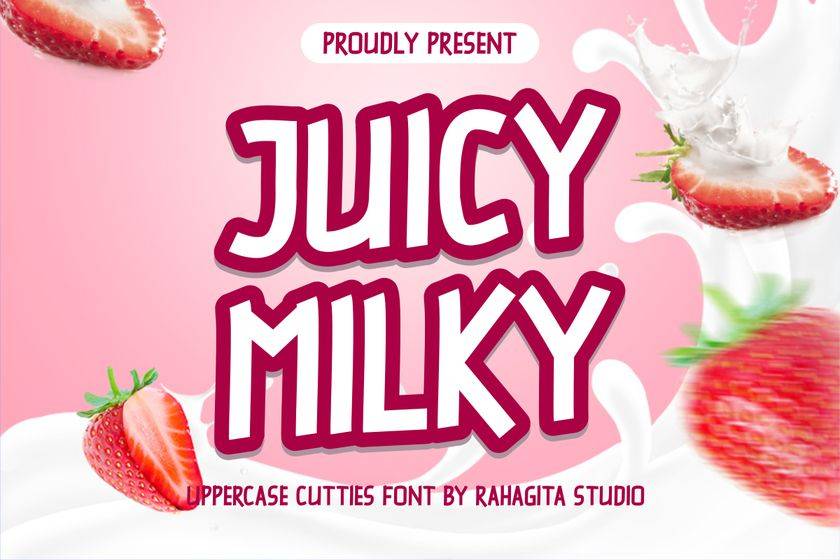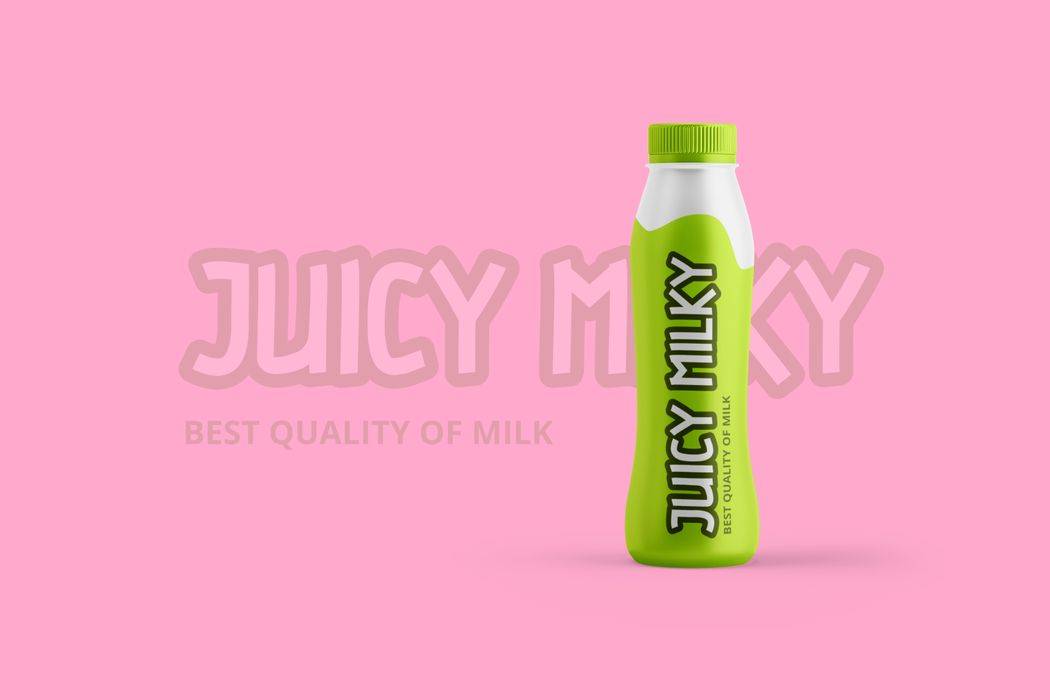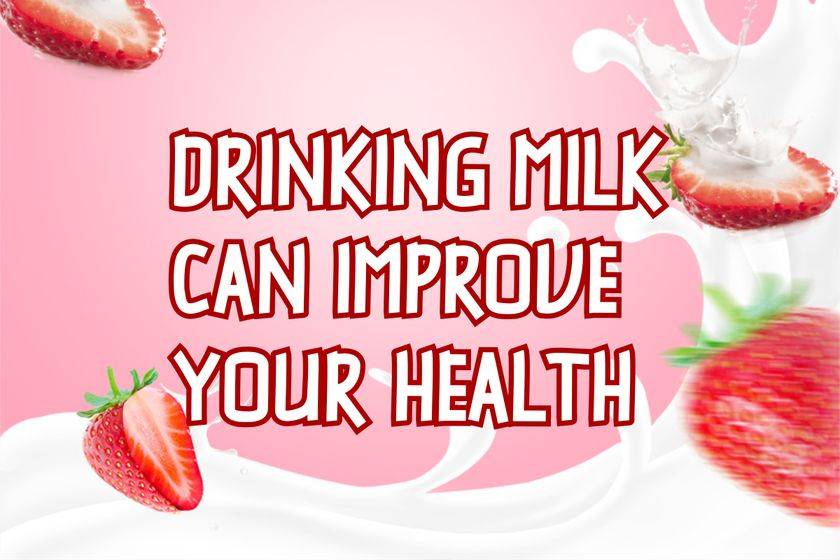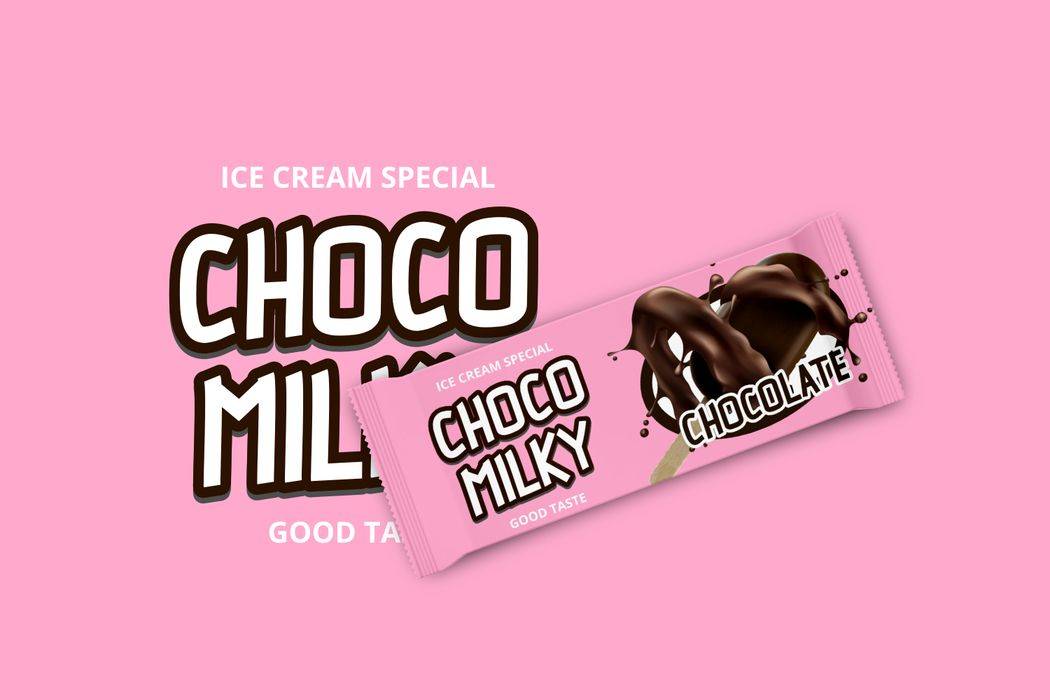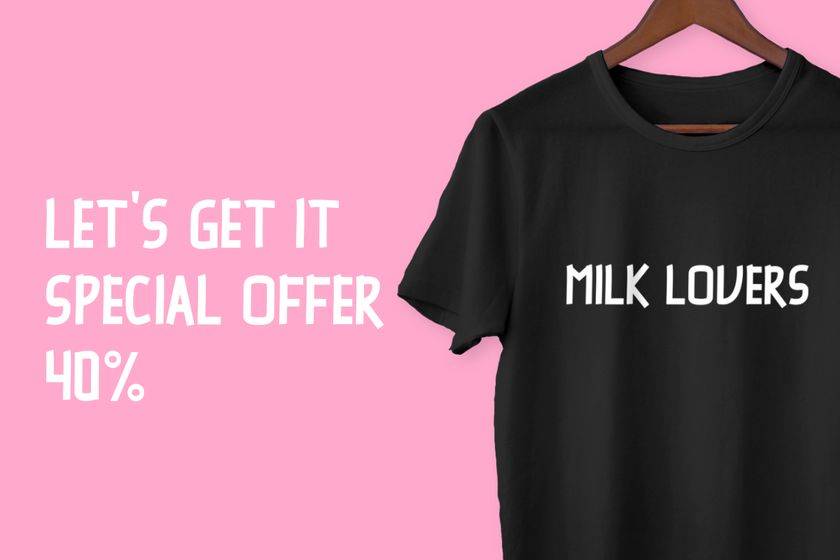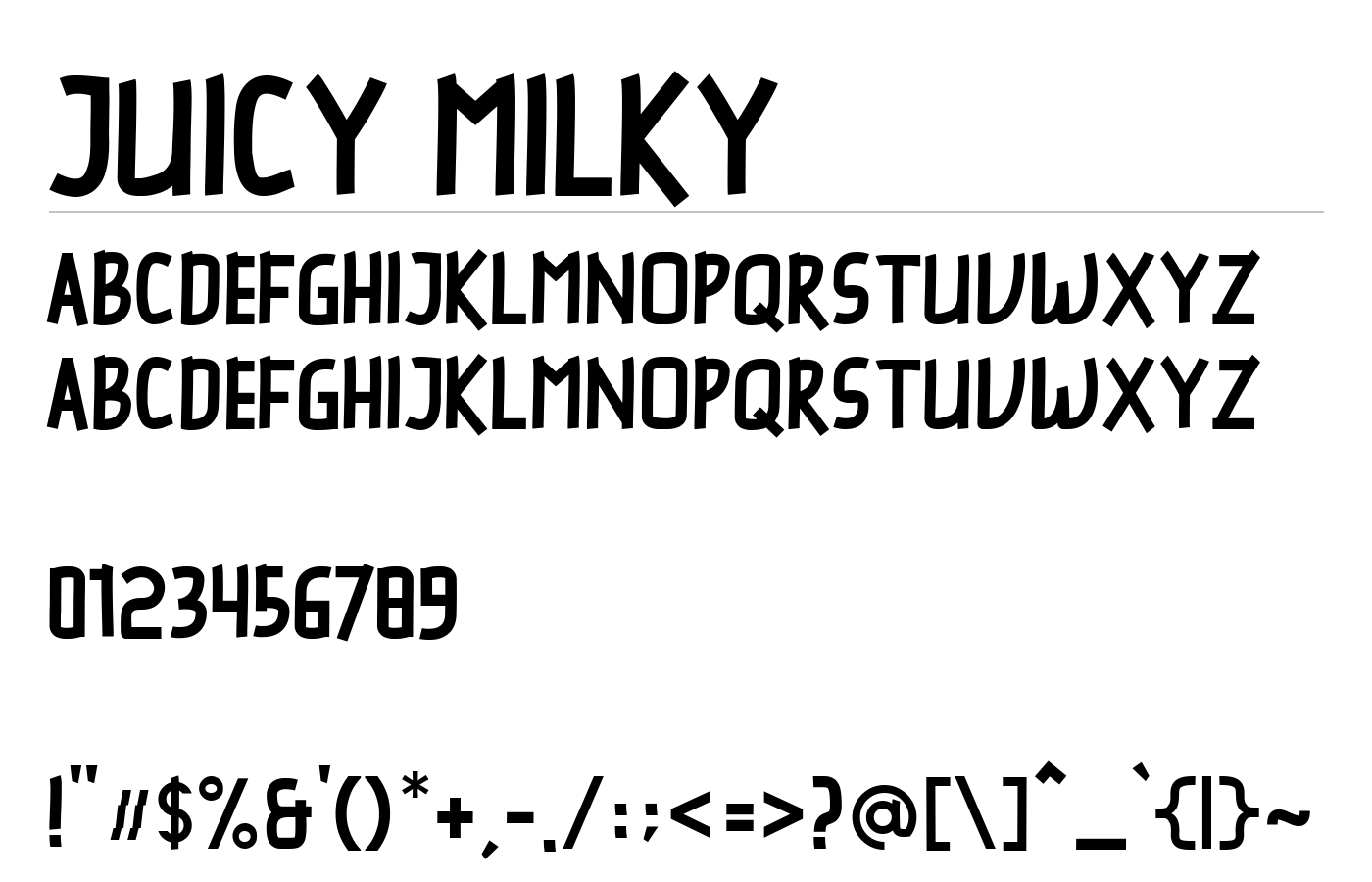
Juicy Milky is a quirky, condensed sans serif font with a playful and handcrafted feel. Its irregular, slightly tilted letterforms and uneven strokes give it a casual, friendly personality, making it ideal for fun, informal branding, children’s products, and creative headlines. This font works best when you want to add charm and approachability to logos, posters, or packaging with a distinctive, lively touch.
Juicy Milky Font
About Juicy Milky Font